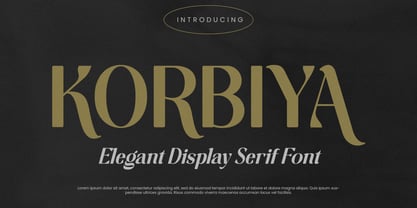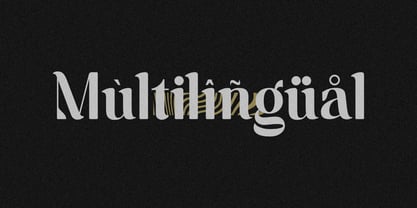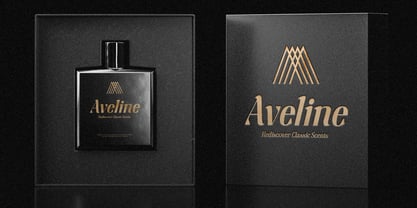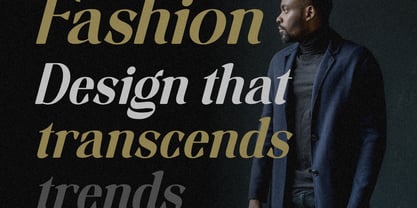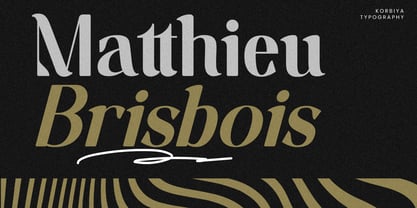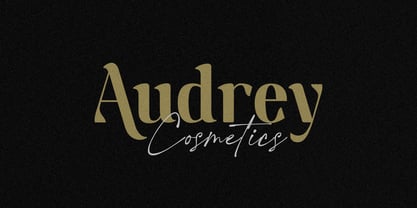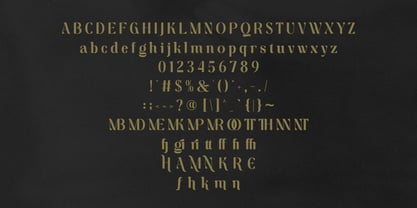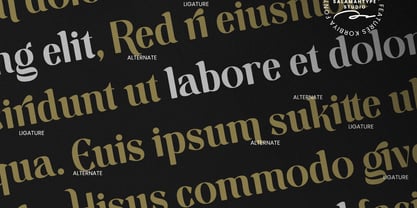
Korbiya
by Salamahtype
The Korbiya Font Family was designed by Aswangga Sadike and published by Salamahtype. Korbiya contains 2 styles and family package options. More about this family
Korbiya is a luxurious serif font with an elegant and stylish look. It features smooth curves, balanced proportions, and subtle details, making it suitable for high-end branding, logos, fashion, beauty, and premium product designs. It has a sophisticated feel that enhances any design with a touch of class and professionalism. Korbiya also includes stylized alternates, giving designers creative flexibility to create unique and eye-catching typography. Whether used for packaging, magazines, invitations, or social media, this font brings timeless charm and luxury to any project.
Korbiya includes:
• Uppercase Lowercase
• Regular and Oblique Style
• Symbol and Punctuation
• Alternates and Ligatures
• Multilingual Support
Designers: Aswangga Sadike
Foundry: Salamahtype